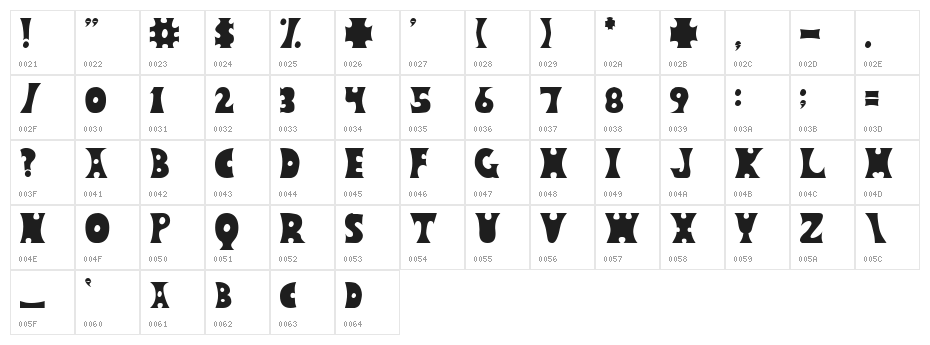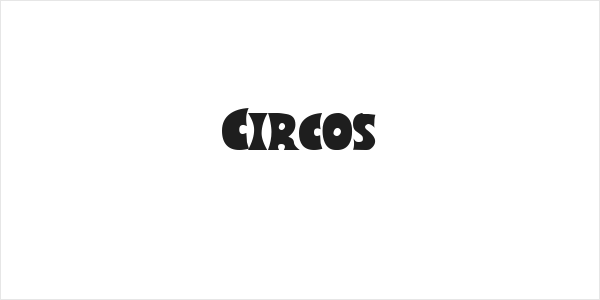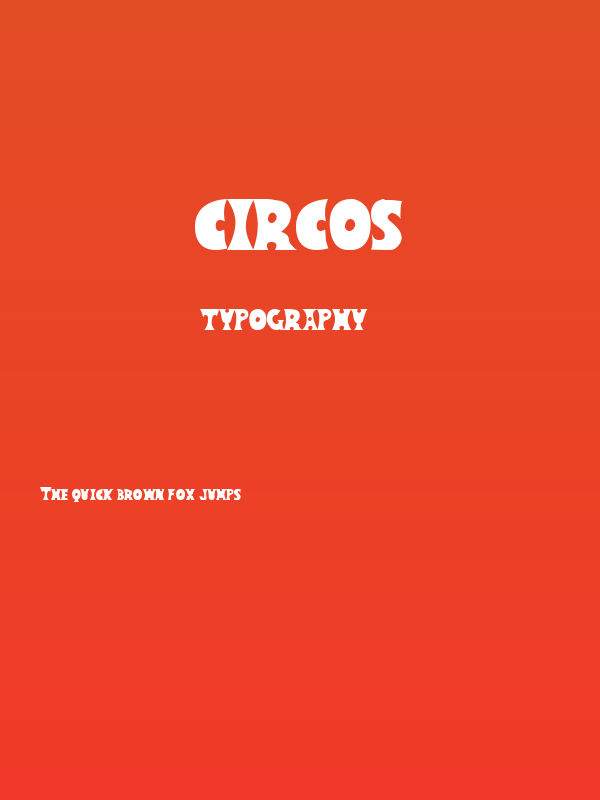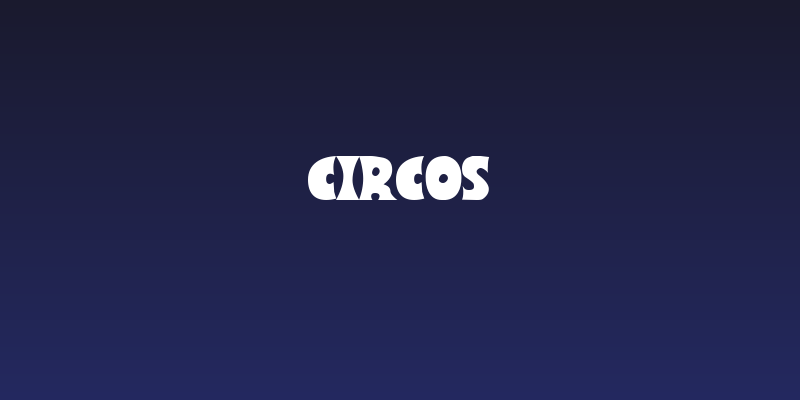
Circos Font
Circos Description
This font features a bold and playful design with a unique puzzle-like appearance. Each character is crafted with a combination of thick and thin strokes, creating a high contrast that draws attention. The letters have a whimsical, almost jigsaw-like quality, with cut-out sections that add a sense of fun and creativity. This distinctive style makes it stand out, perfect for projects that require a touch of originality and flair. The font's boldness and decorative elements make it ideal for eye-catching headlines and artistic designs.
Proposed ProjectsIdeal for children's book covers, playful branding, event posters, and creative logos.